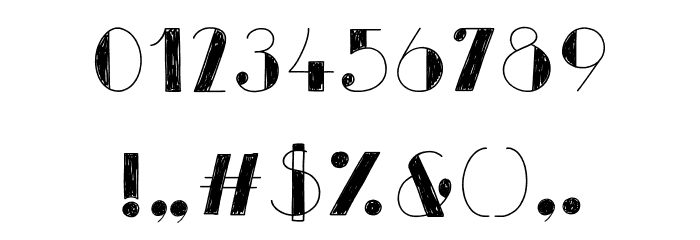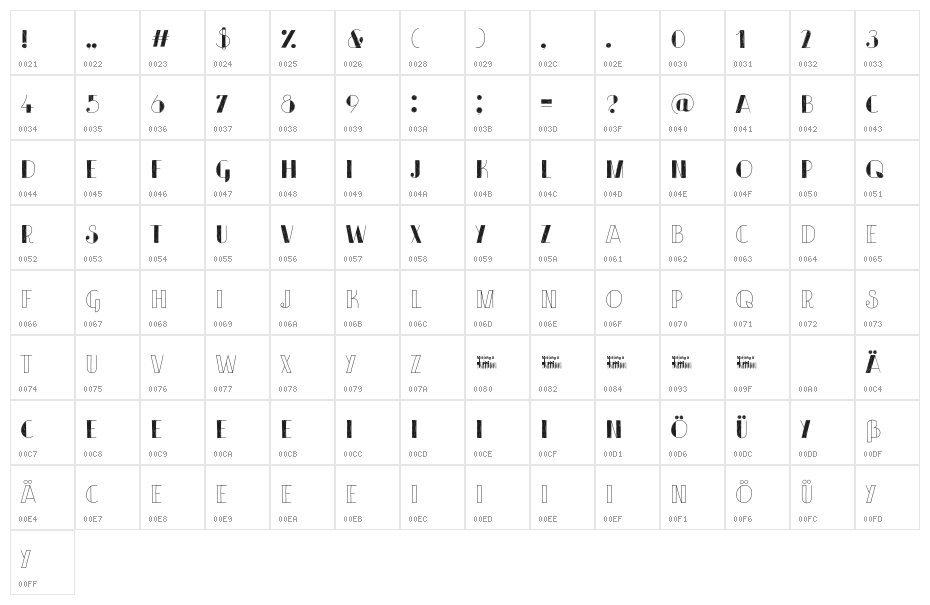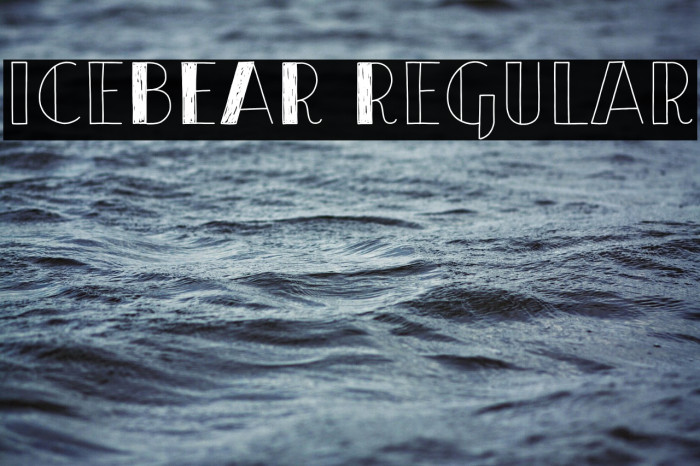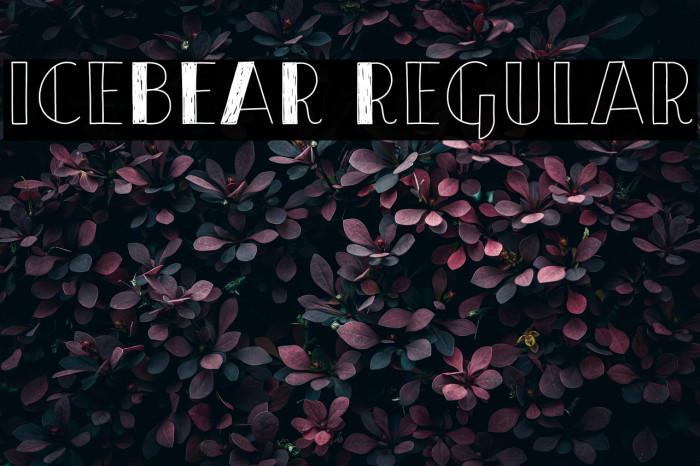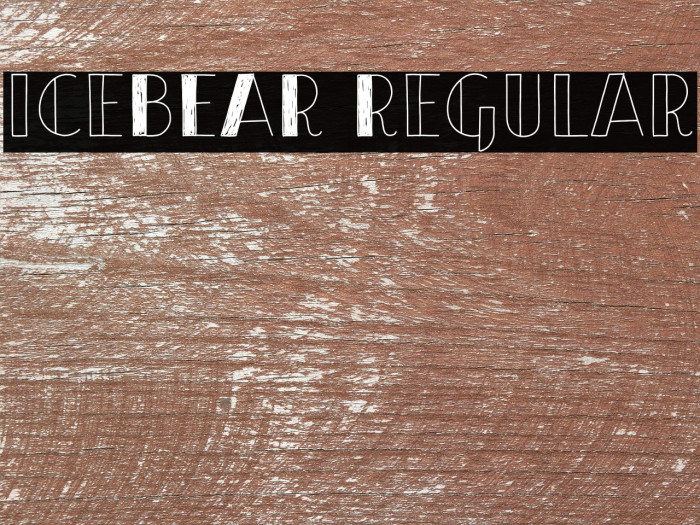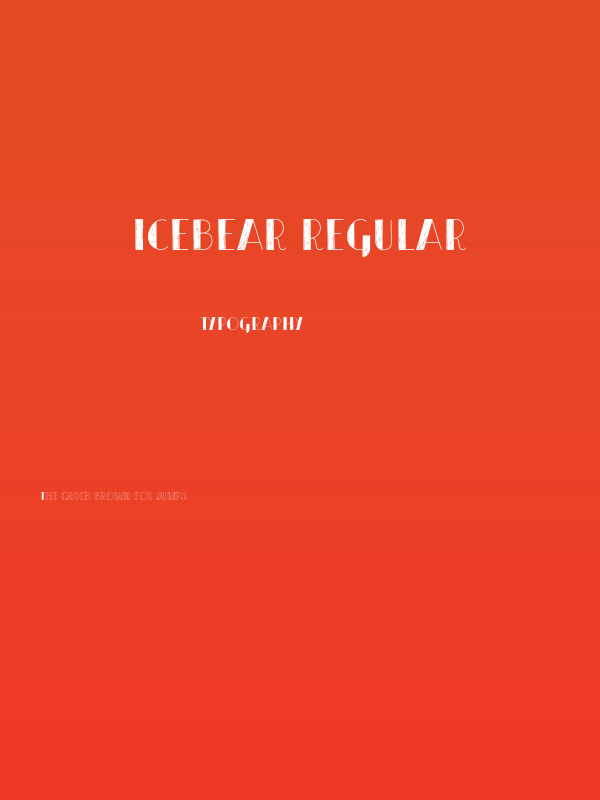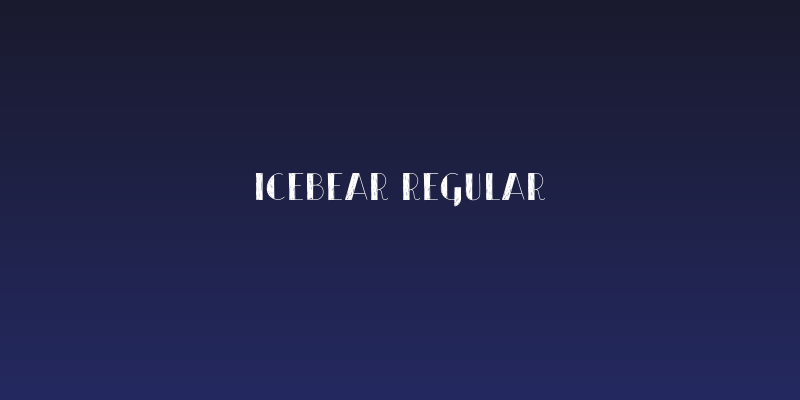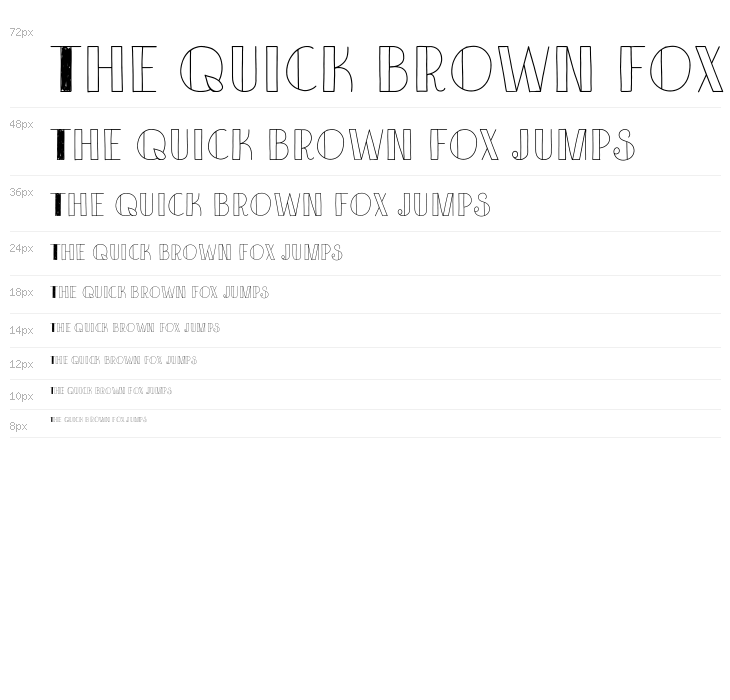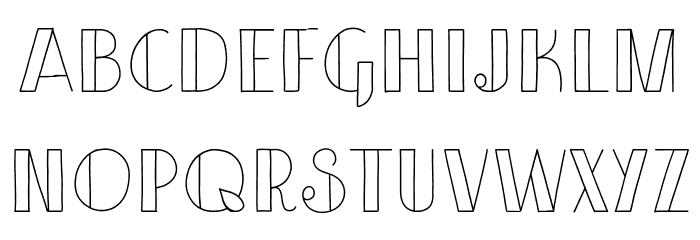
iceBEAR Regular Font
iceBEAR Regular Description
This font features a bold and artistic style with a unique distressed texture that gives it a hand-drawn appearance. The uppercase letters are characterized by thick strokes and a slightly condensed form, while the lowercase letters maintain a consistent style with a playful twist. The numbers and special characters follow the same design, ensuring a cohesive look throughout. The font's decorative nature makes it stand out, with each character exhibiting a distinct personality. The overall design is modern yet retains a vintage charm, making it versatile for various creative applications.
| Overall Style | Modern Vintage |
| Proposed Projects | Ideal for branding, posters, album covers, and any project requiring a bold, artistic touch. |